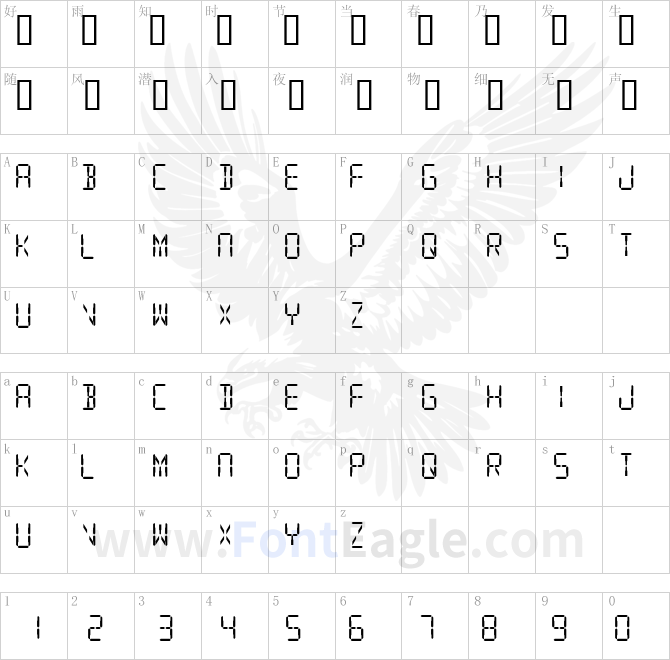
Digital-Readout-Upright is a great font, widely used in graphic design, single-page menu design, poster design and other fields, and is deeply loved by designers.Digital-Readout-Upright download.